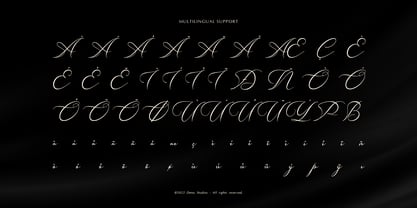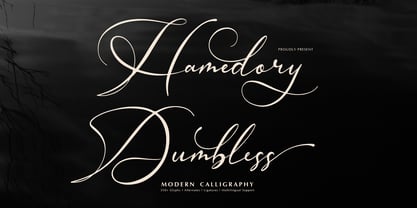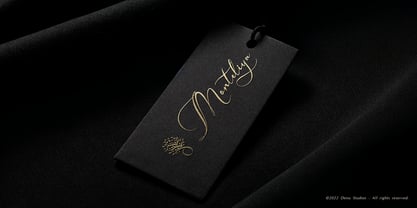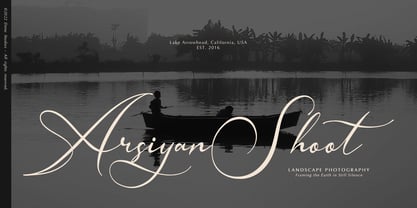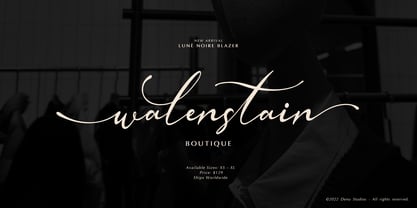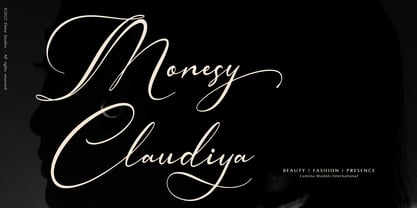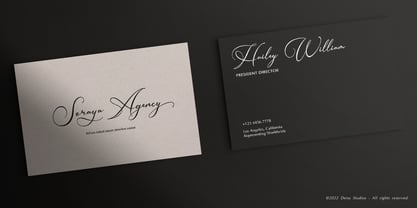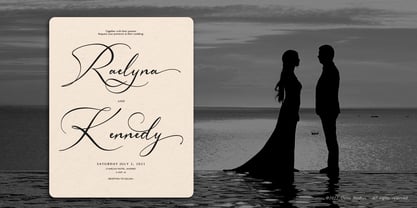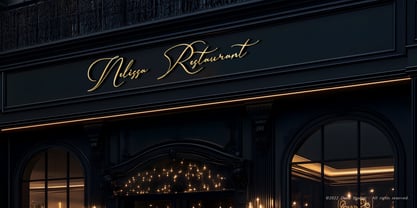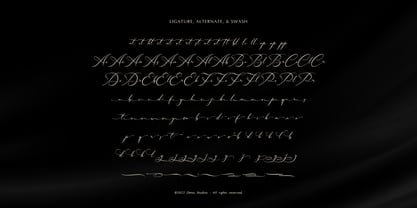
Hamedory Dumbless
La familia tipográfica Hamedory Dumbless fue diseñada por Dede Nugraha y publicada por Denustudio. Hamedory Dumbless contiene 2 estilos y opciones de paquete familiar. Más información sobre esta familia
Hamedory Dumbless | Modern Calligraphy, from Denustudios, suitable for any projects such as: logos, branding projects, homeware designs, product packaging, mugs, quotes, posters, shopping bags, t-shirts, book covers, name card, invitation cards, greeting cards, label, photography, watermark, special events, and all your other lovely projects that need Modern Calligraphy a taste.
• Regular and Italic
• Alternate and Ligature